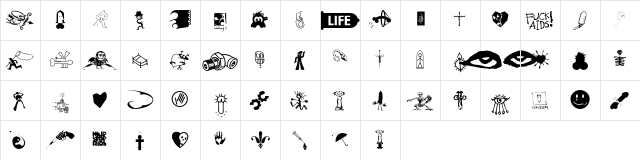
Aiding1 Regular
Design Context for Aiding1 Typeface
Aiding1 is a composed and adaptable typeface that performs quietly and consistently across a wide range of design contexts.